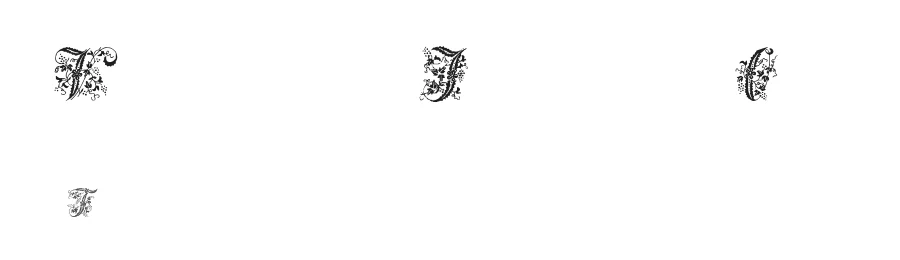
About Dark Academia Font
Dark Academia is a decorative font designed by Céline Hurka. It includes 102 glyphs, a regular weight, TTF (TrueType) format, and 107 languages. Dark Academia is free to download; check the license details on this page before commercial use. Decorative fonts like Dark Academia work best for logos, posters, packaging, and standout headlines.
| Designer | Céline Hurka |
Dark Academia Font is a decorative font that shines as a display or heading face. Pair it with a clean sans-serif or serif font for body text — the contrast creates a clear hierarchy while the two styles stay balanced and easy to read.
Dark Academia Font
by Céline Hurka